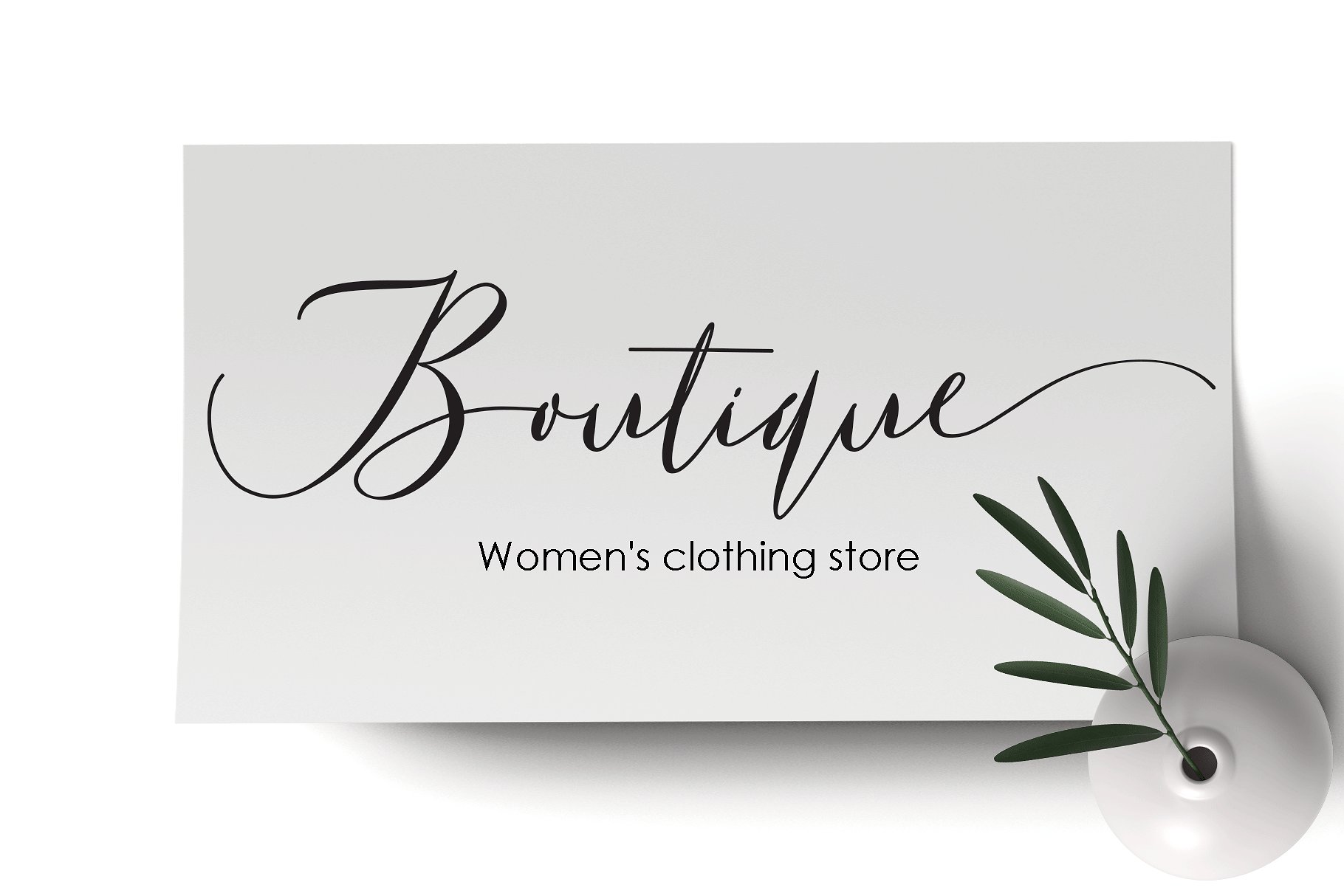
Ave Fedan Script Font
The Ave family is a soft, flowing script typeface. It comes in three thicknesses; the thin Ave Utan, the medium Ave Betwan, and the bold / fat Ave Fedan.
All the fonts contains OpenType swashes and contextual alternates to give you the option to add a natural, custom and decorative touch.